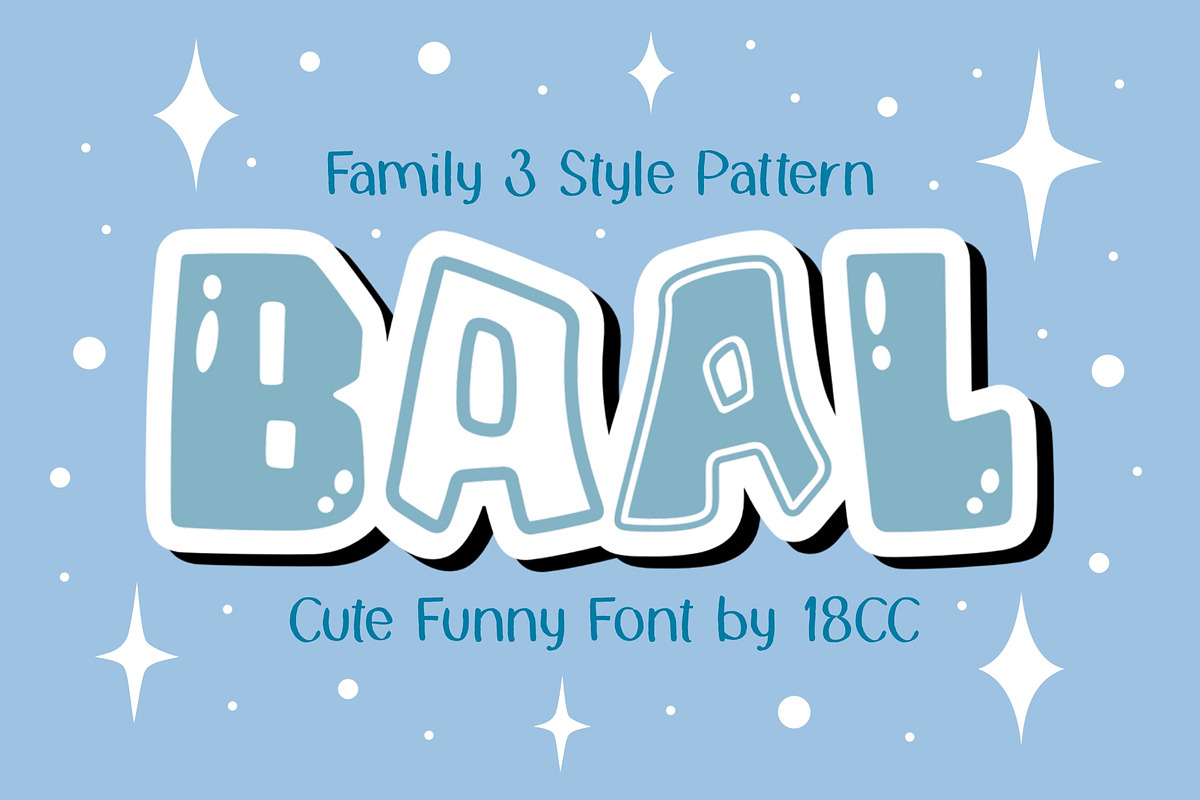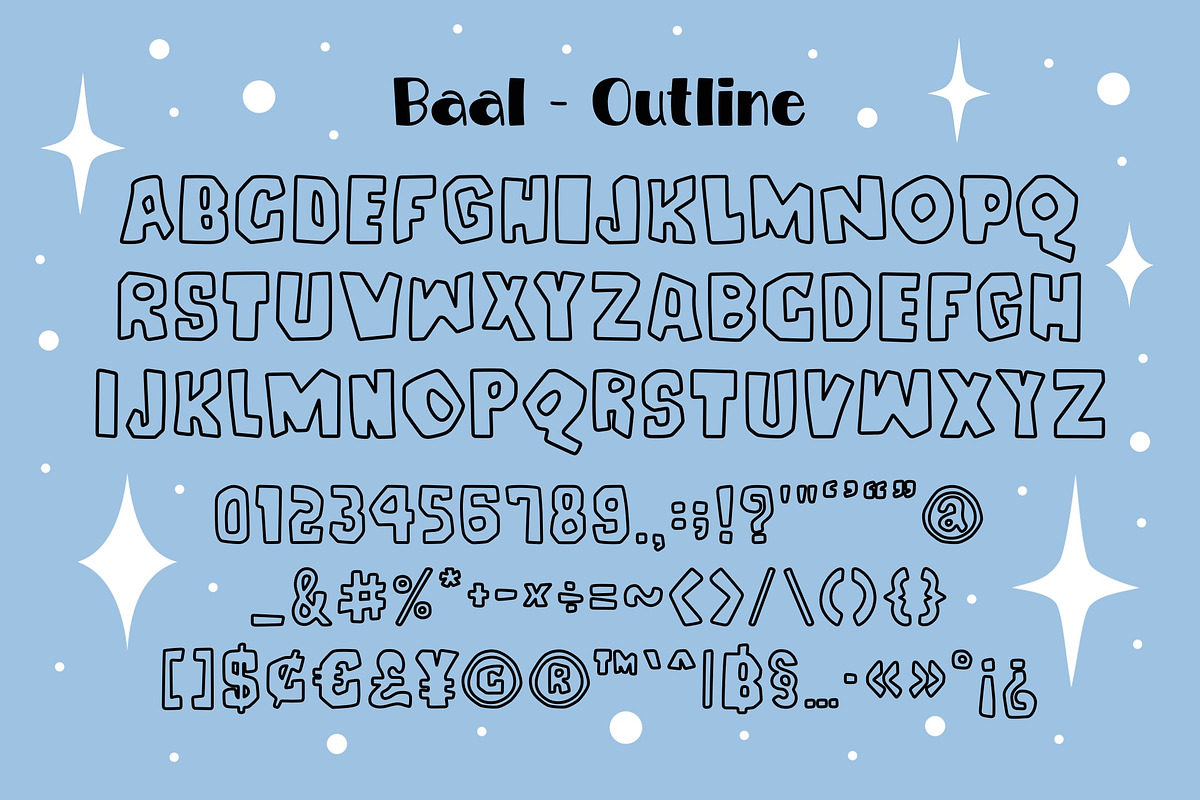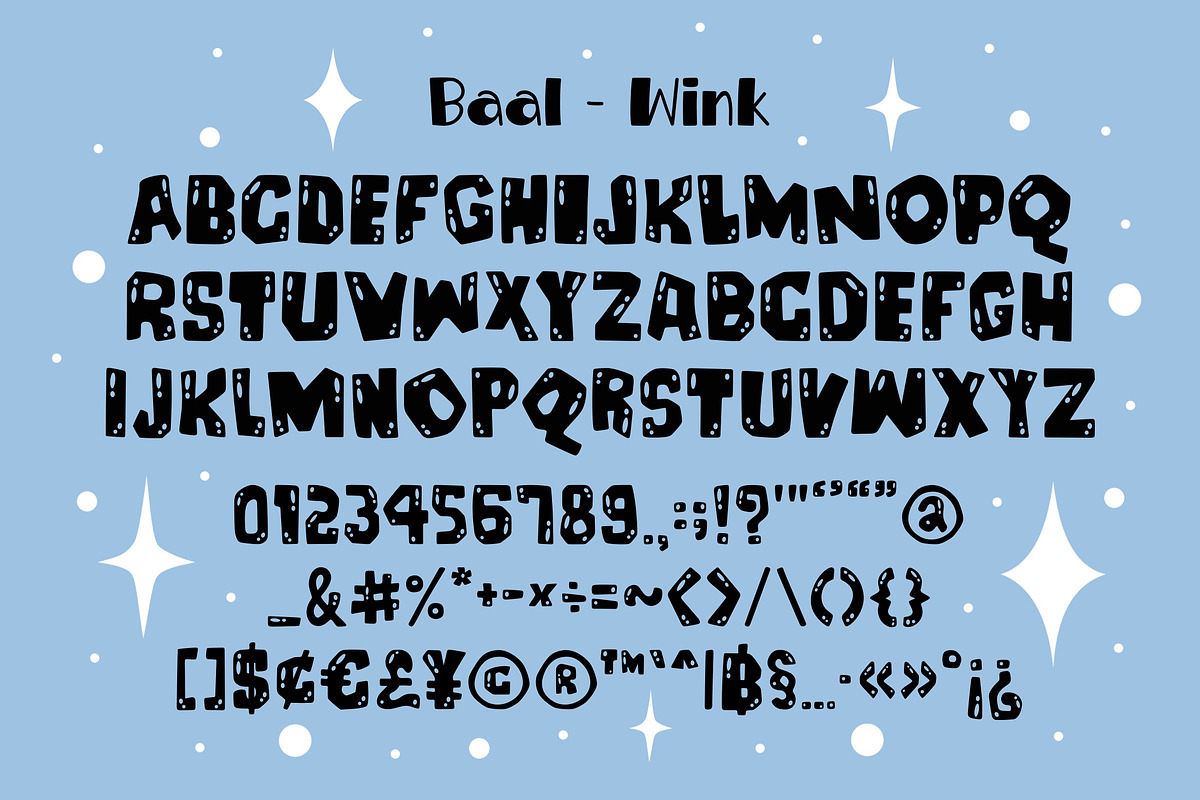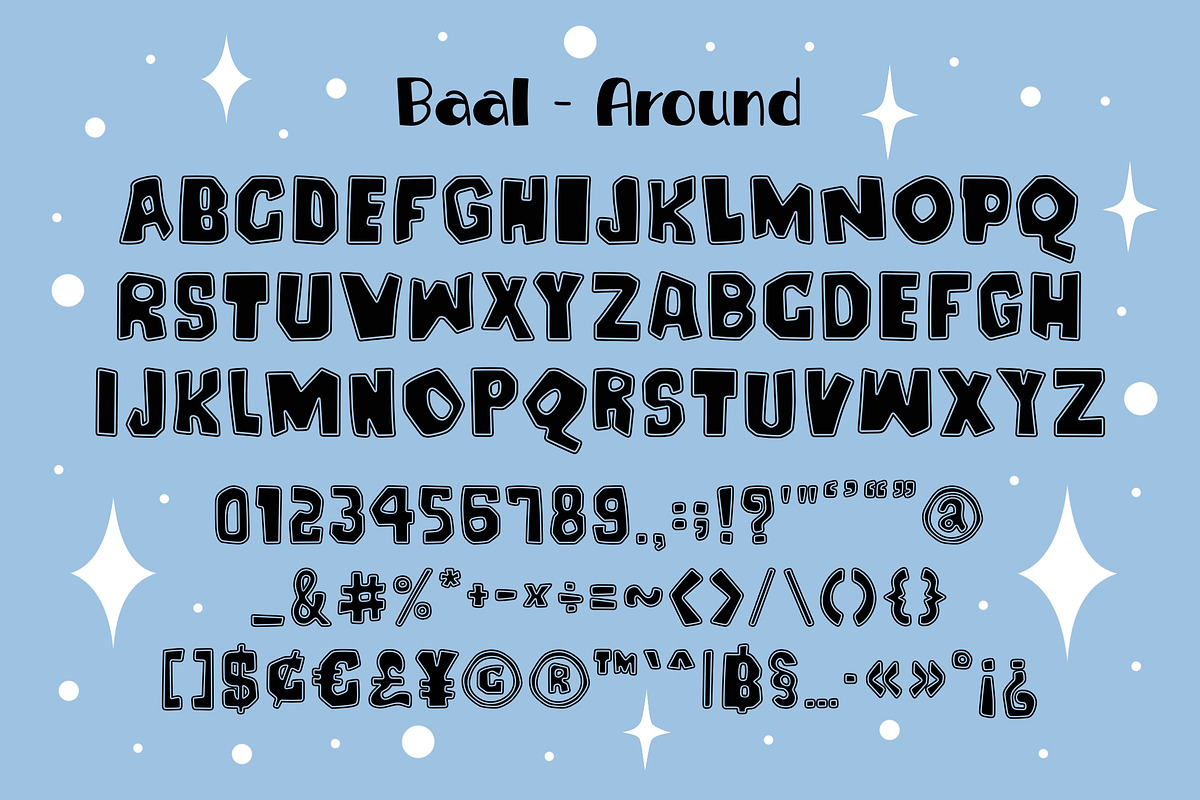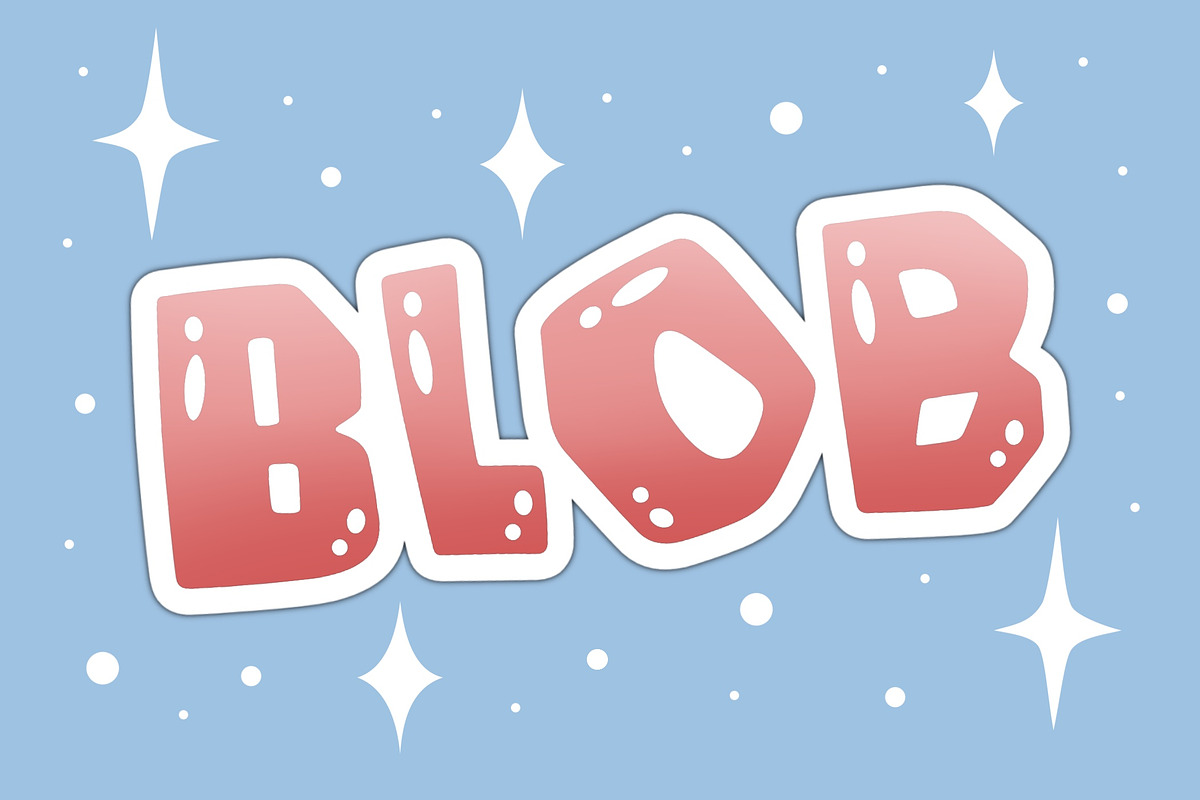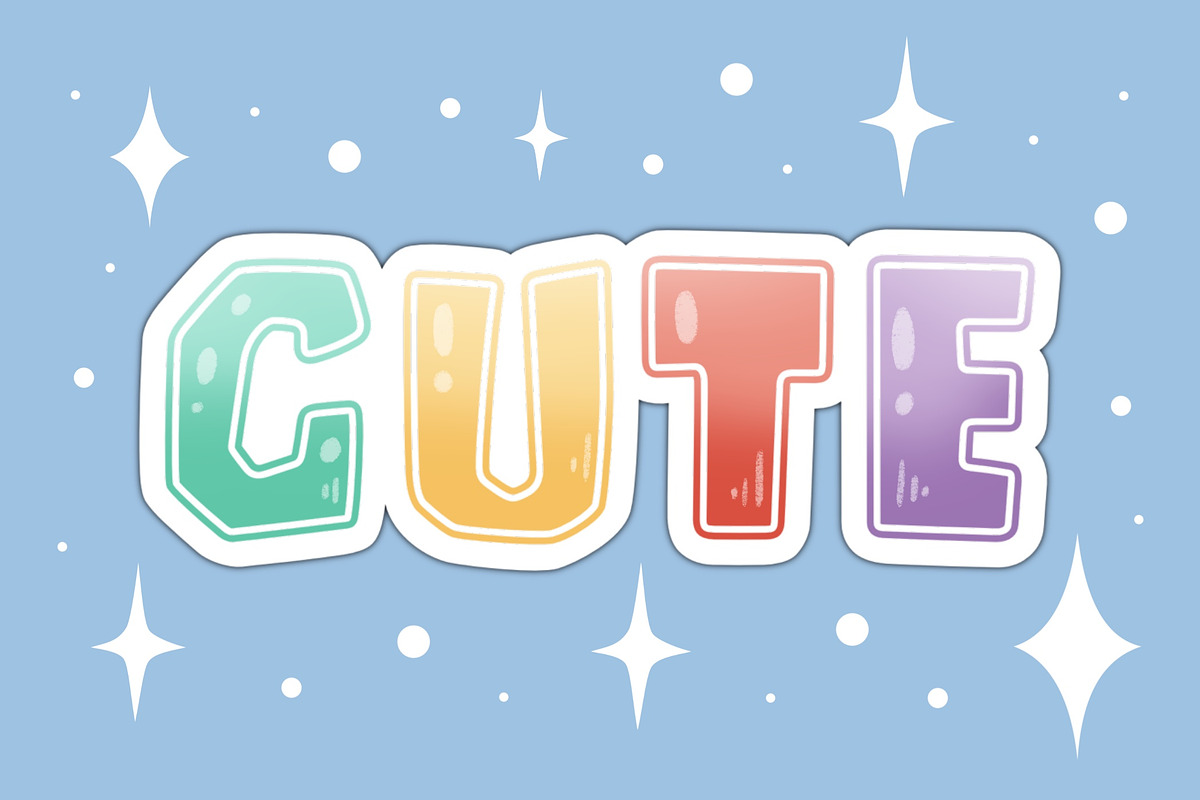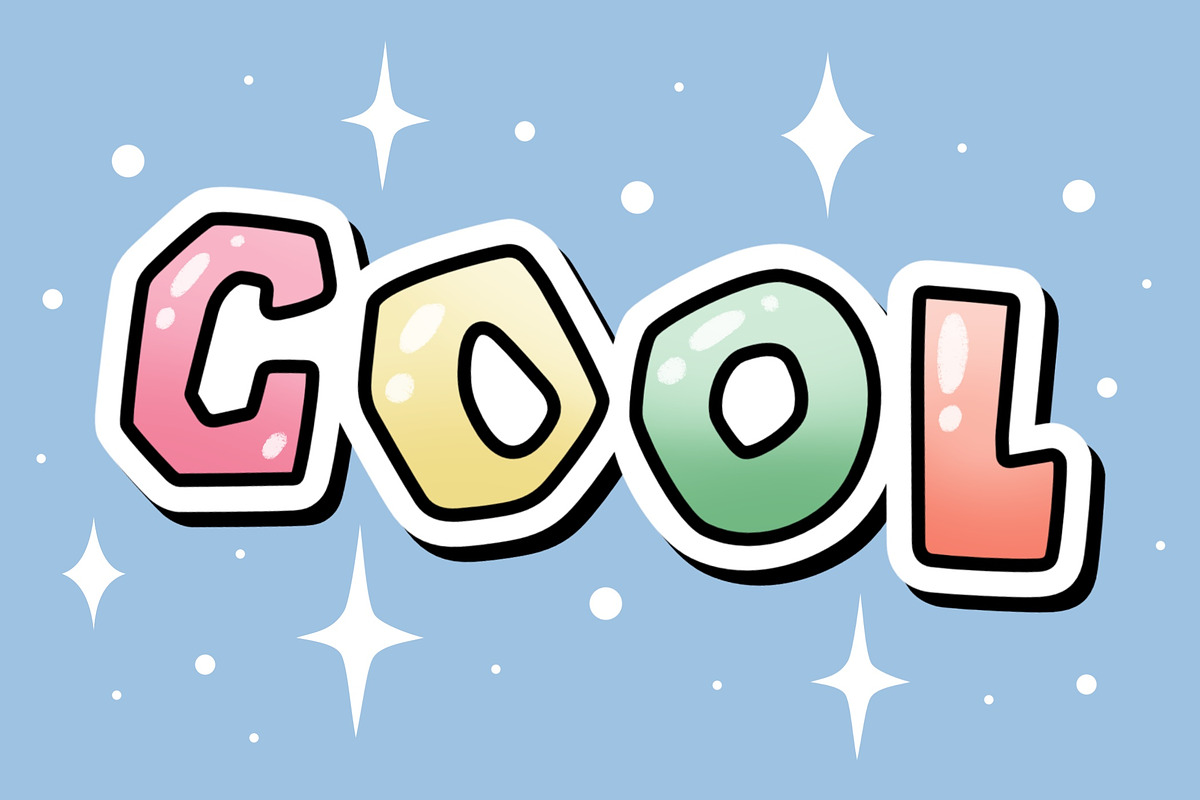
Baal is a playful font 3 style family. This unique font grabs attention in print, packaging, and social media, making it perfect for creating a distinctive and memorable visual impact.